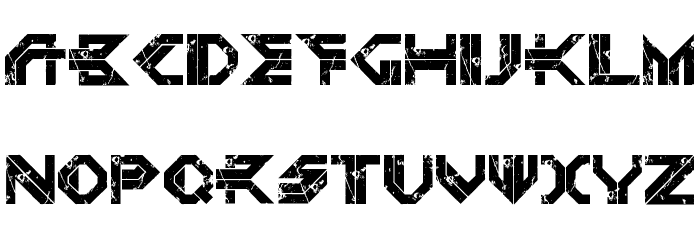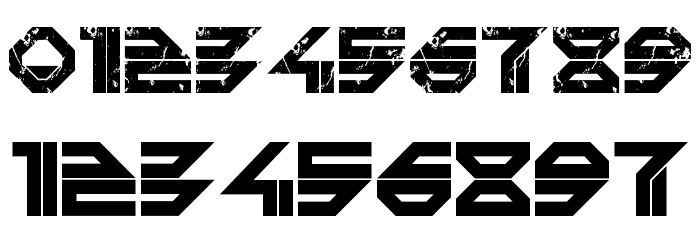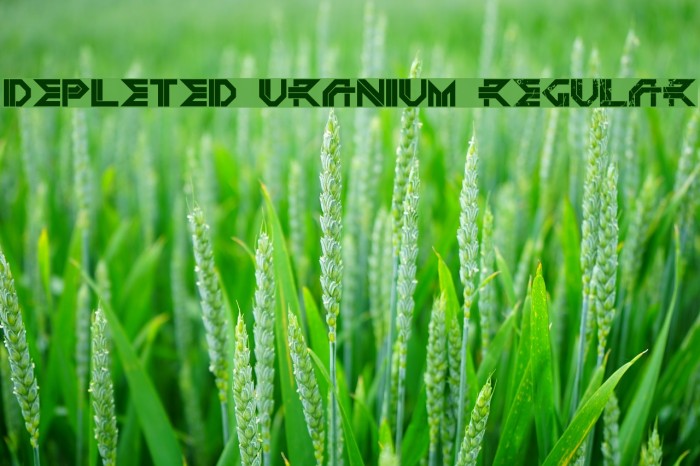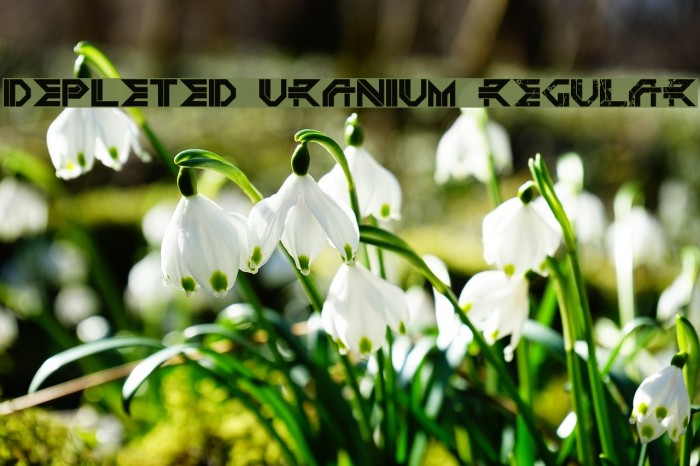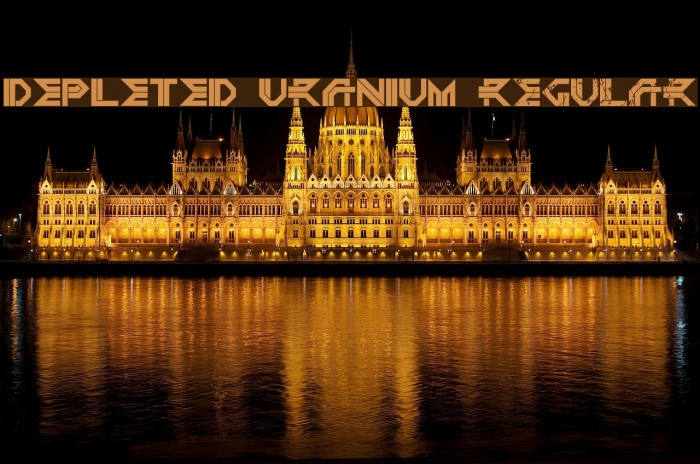
DEPLETED URANIUM Regular Font
This font features a bold, geometric design with a futuristic and industrial feel. The characters are constructed with sharp angles and straight lines, giving them a mechanical and robust appearance. The uppercase letters are particularly striking, with a blocky and angular style that suggests strength and modernity. The lowercase letters maintain the same geometric theme, ensuring consistency throughout the typeface. The numbers are equally bold and angular, fitting seamlessly with the overall aesthetic. The special characters are designed to match the boldness and angularity of the letters and numbers, making them suitable for attention-grabbing designs. This font is ideal for projects that require a strong, modern, and industrial look.
A bold, geometric font with a futuristic and industrial design.
- Proposed Projects: Ideal for sci-fi themed designs, industrial branding, video game titles, and futuristic posters.
- Overall Style: Futuristic, Industrial